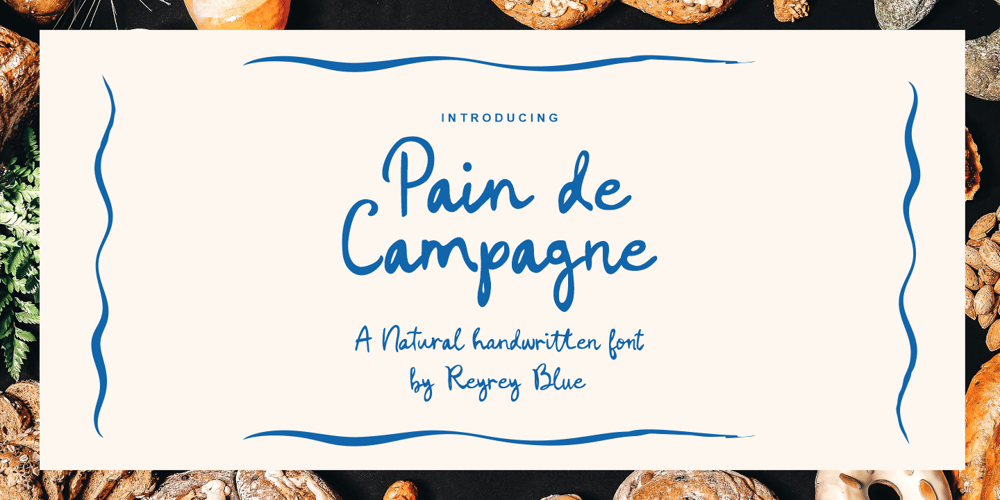
Pain de Campagne Font Family was designed by Risca Anitawati and published by Reyrey Blue Std. Pain de Campagne contains 1 styles and family package options. Introducing, Pain de Campagne. This font is based on natural, organic handwriting created with a vintage feel.This type of font is perfectly made to be applied especially in logos, headlines, signage, and the other various formal forms such as invitations, labels, logos, magazines, books, greeting/wedding cards, packaging, fashion, makeup, stationery, novels, labels or any advertising purpose. This product was created to help you make your digital images even more beautiful and unique.